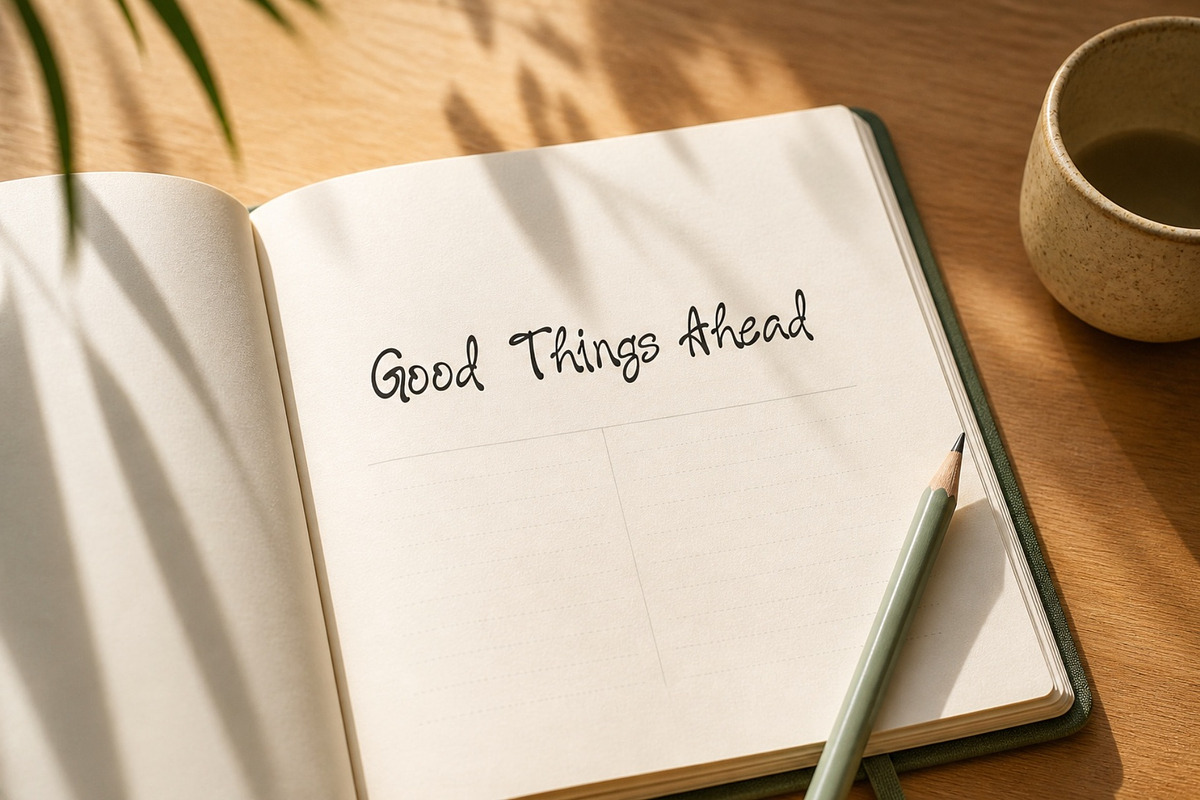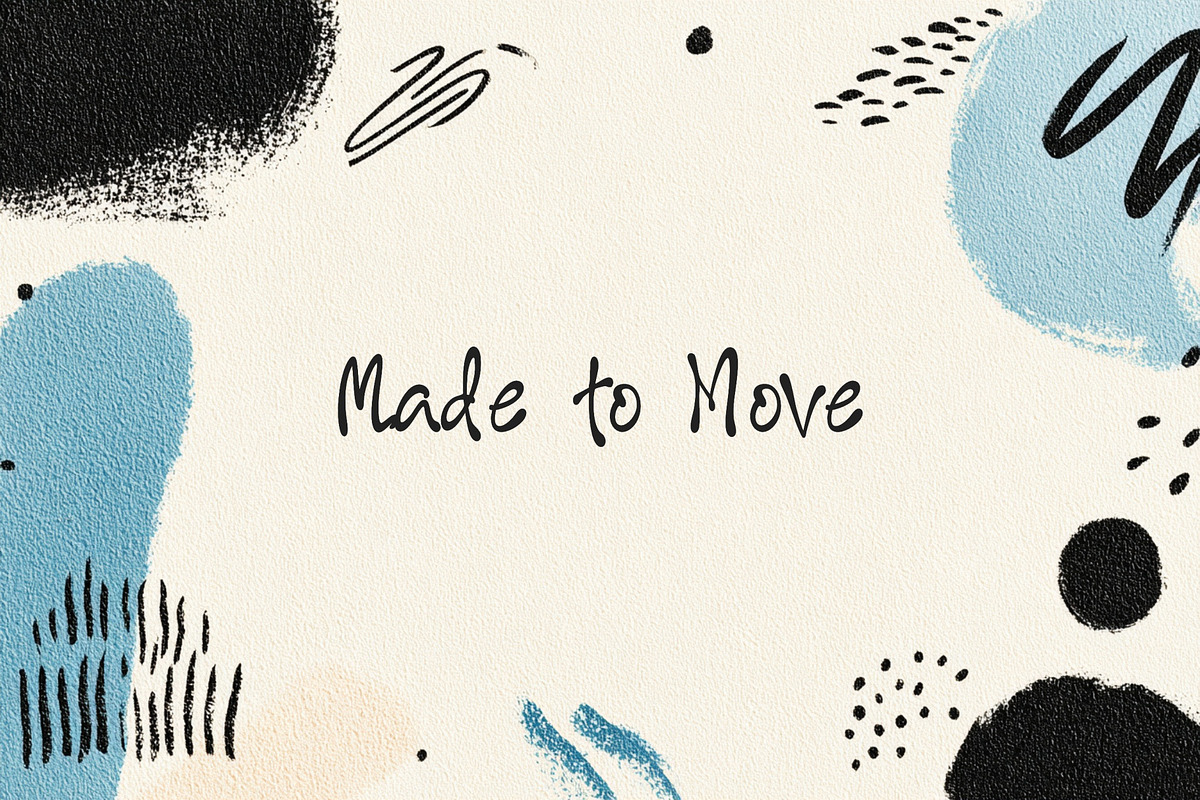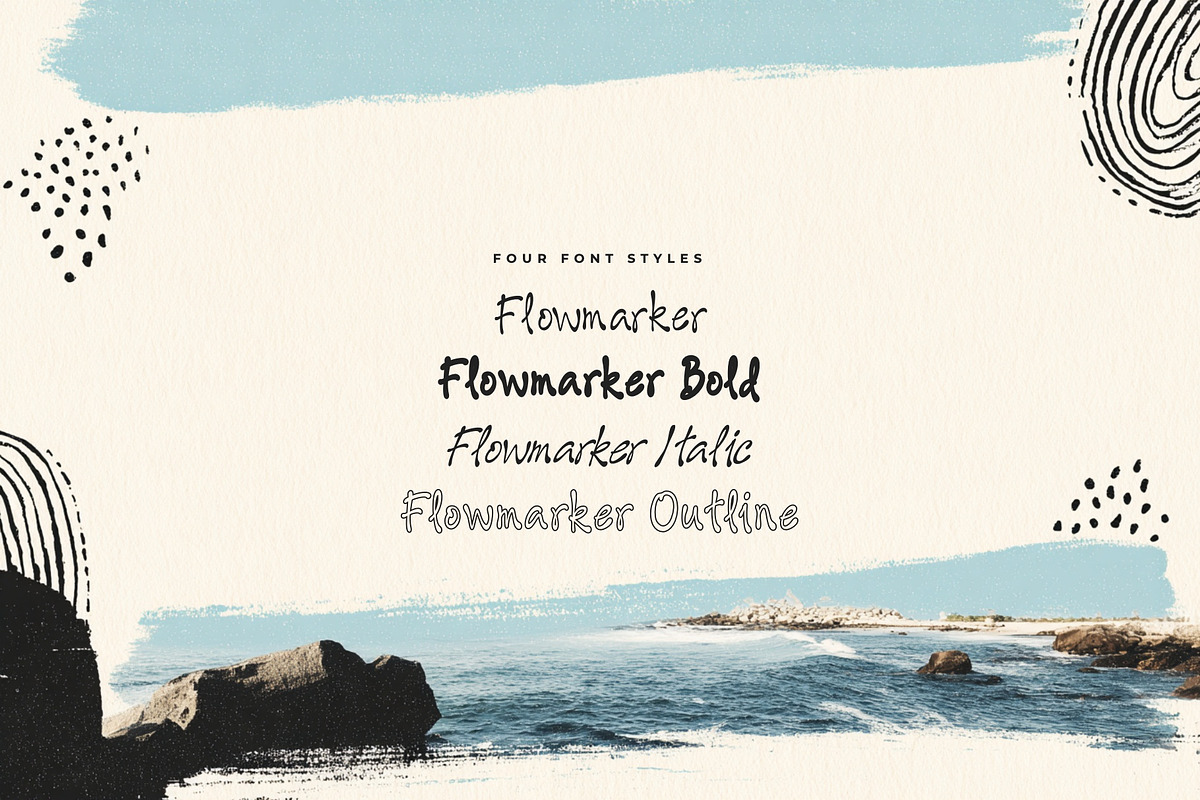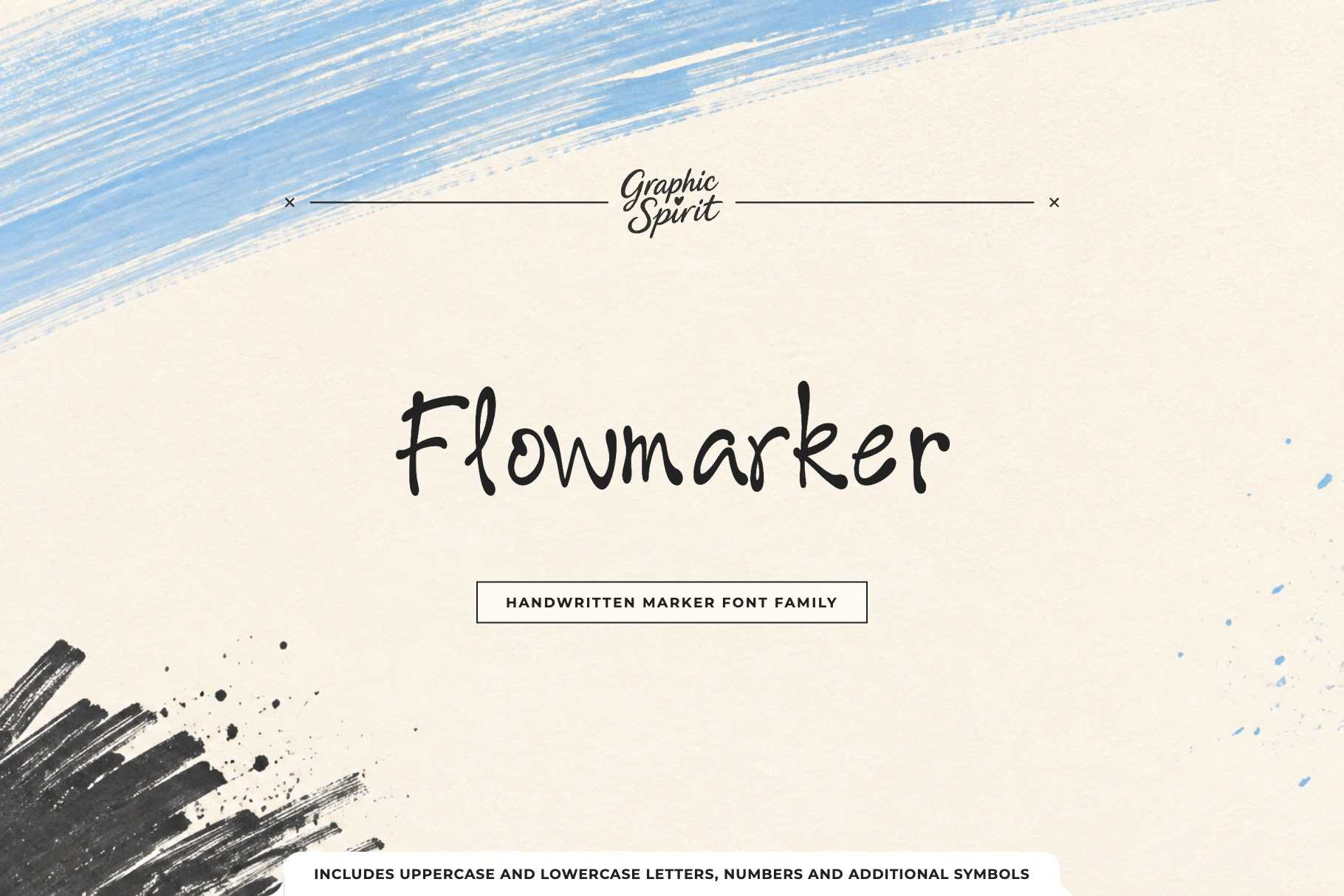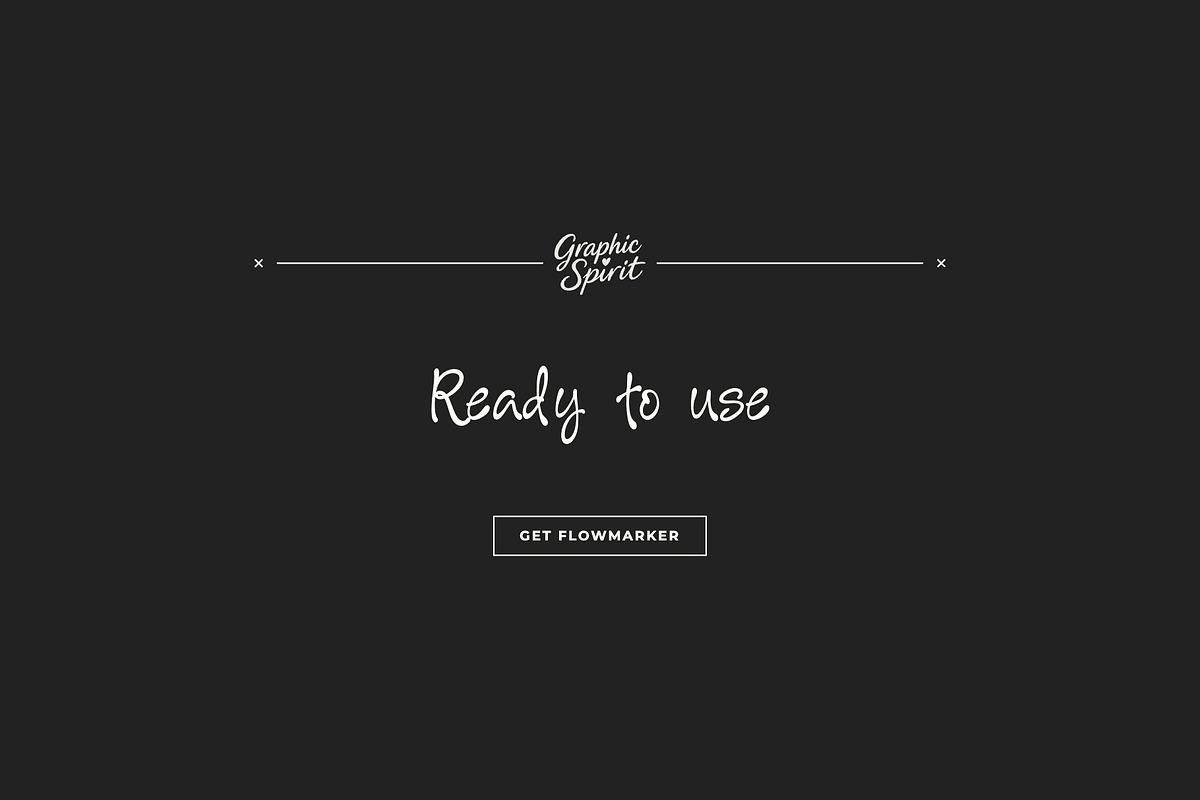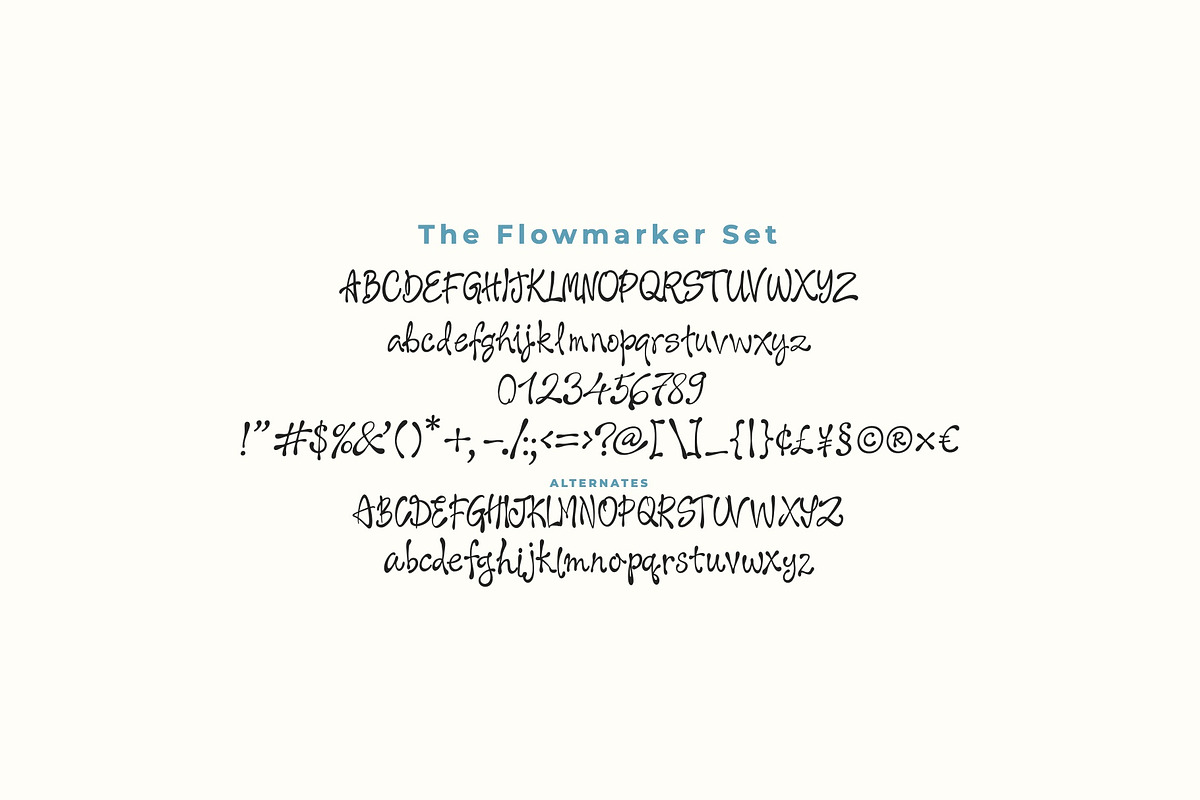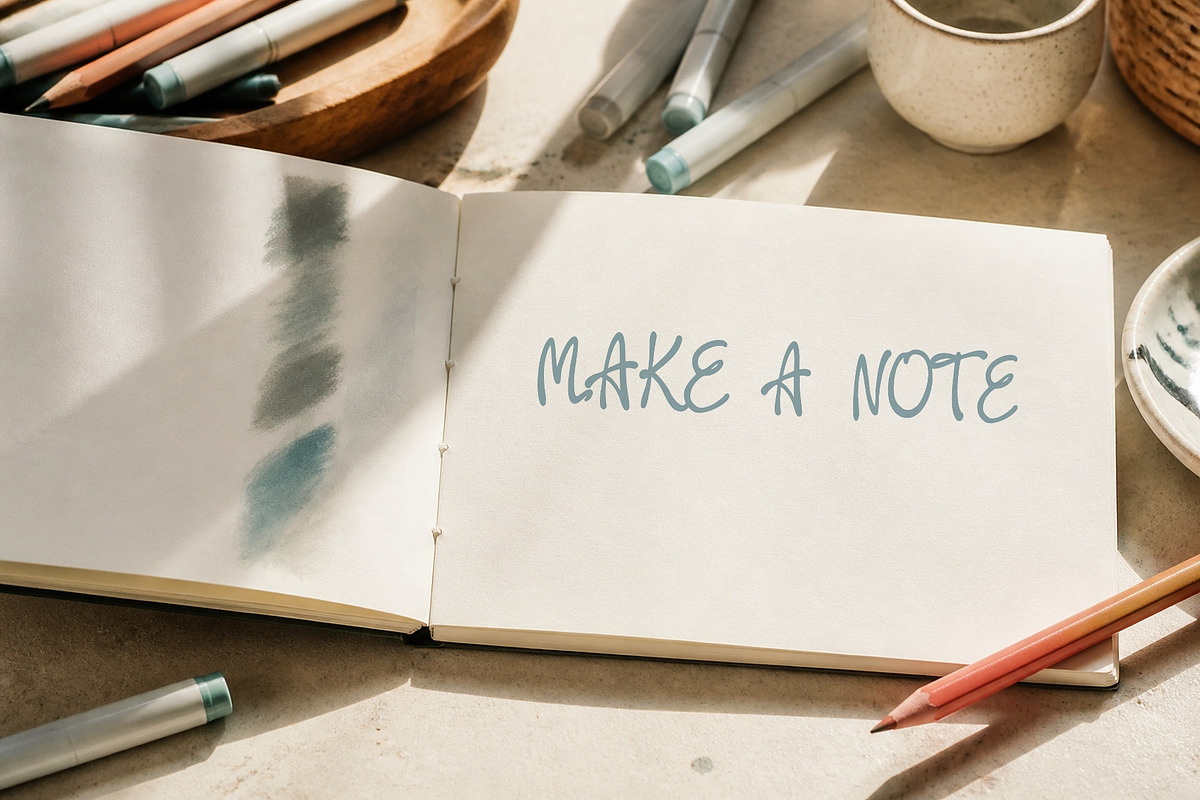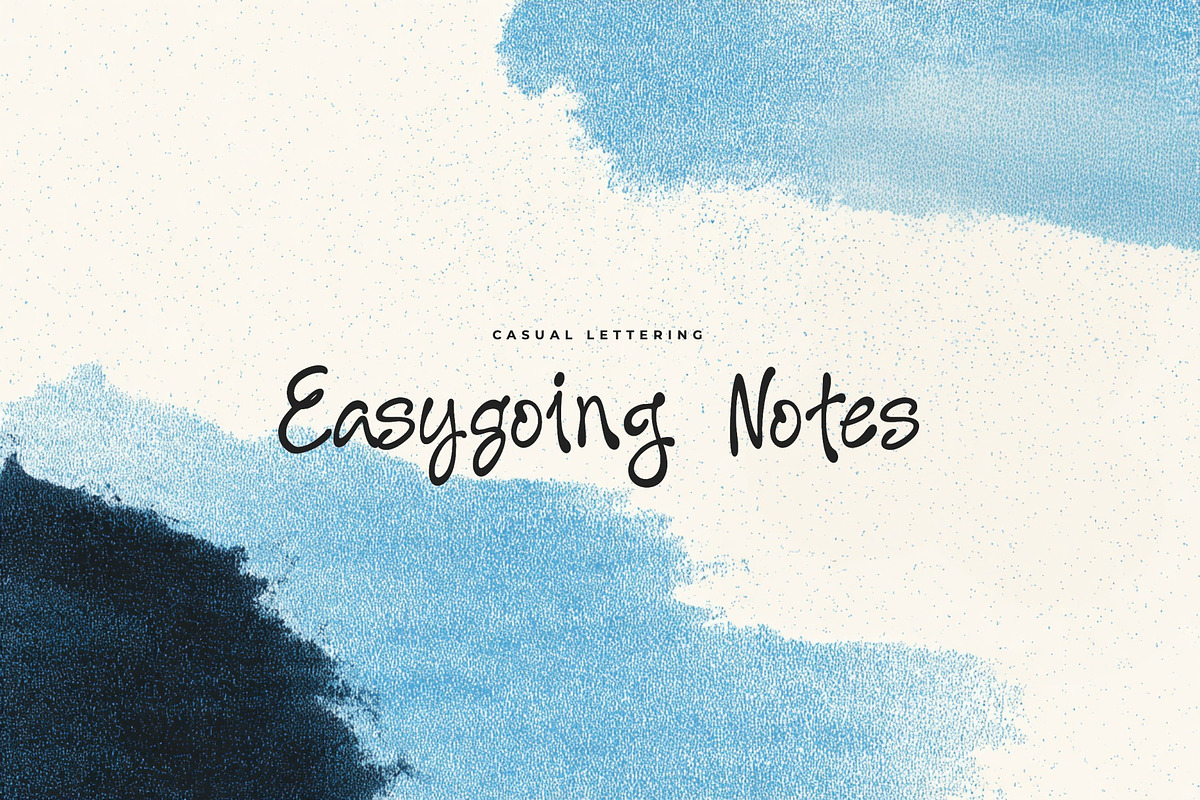
Flowmarker Hand Drawn Marker Font
🖊️ ✏️ ⚡ ✨ Flowmarker is a casual hand-drawn marker family shaped by spontaneous strokes and friendly handmade energy. It was created for designers and independent brands looking for expressive display typography that feels specific rather than generic.
🎨 The font works beautifully across playful branding, posters, notes, social graphics, packaging. Use it for a confident headline, a memorable product name, or a typographic accent that ties a visual identity together. 💫
🌟 Best for:
- 🖊️ Playful Branding
- ✏️ Posters
- ⚡ Notes
- 🖊️ Social Graphics
- ✏️ Packaging